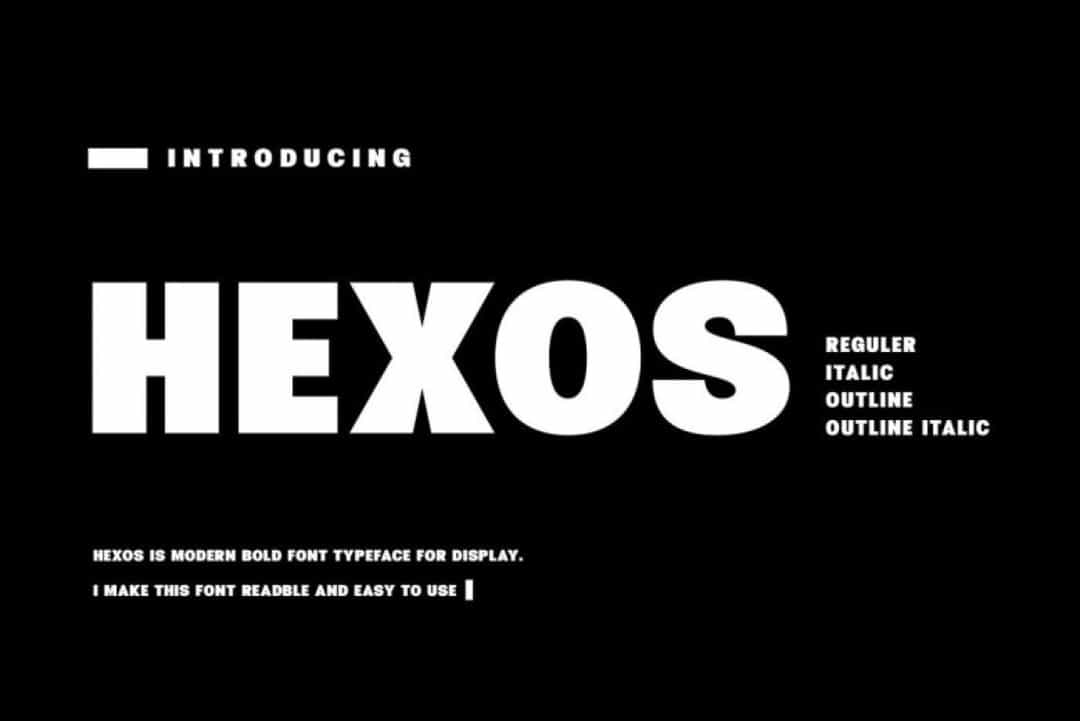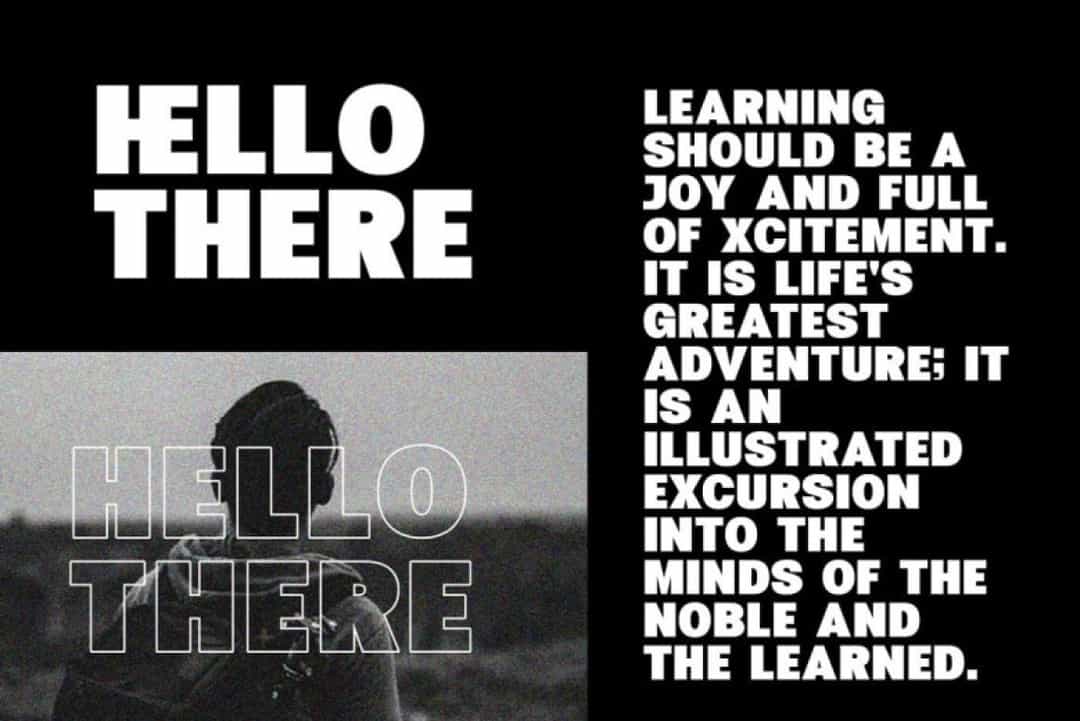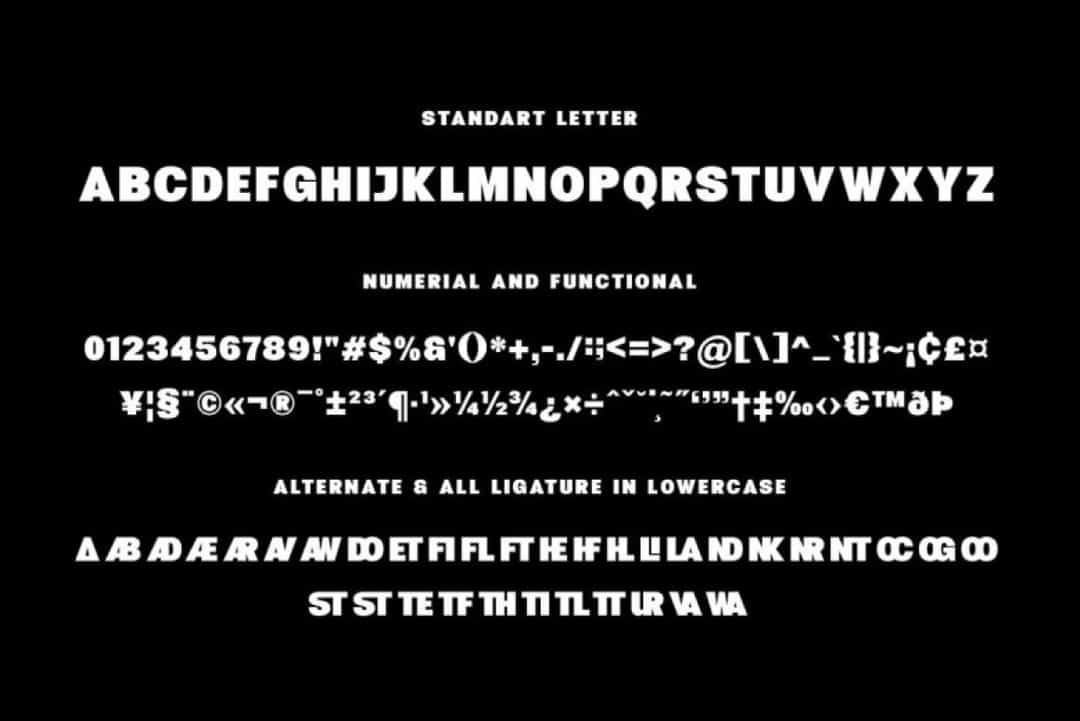
Hexos is an eye-catching sans serif font with contemporary appeal. Its geometric designs and sharp edges give this font its modern aesthetic, as do its four font options: regular outline font, regular italic font and two different outline variants for ease of use in design projects. I created a lowercase ligature so it can be utilized easily by designers and clients.